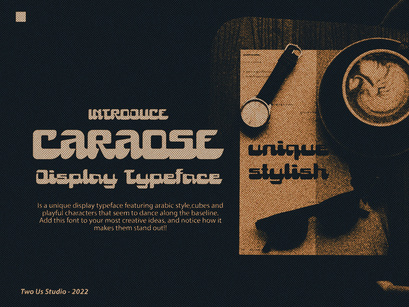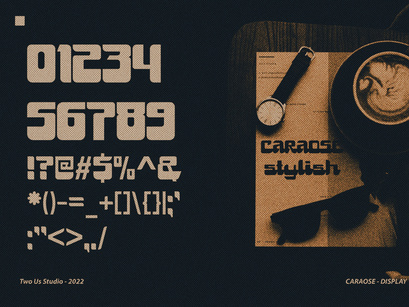
Caraose is a handmade display font. This decorative and unique font can easily become your favorite. It can be used for books, magazines, social media posts, invitations, and so much more! So add this to your creations and take your designs to the next level!